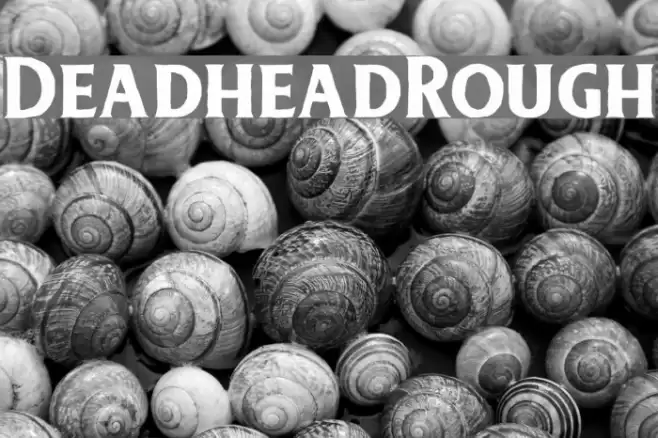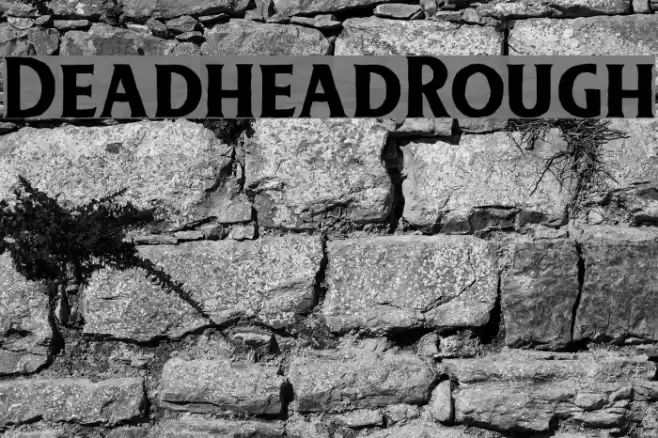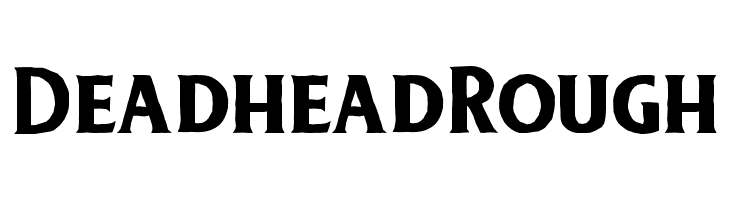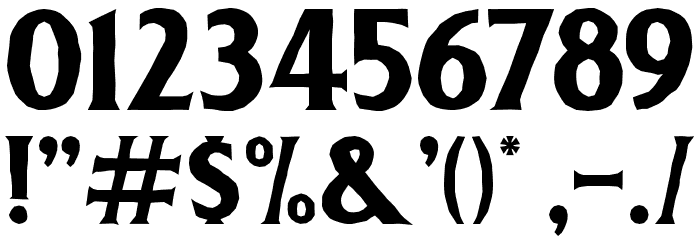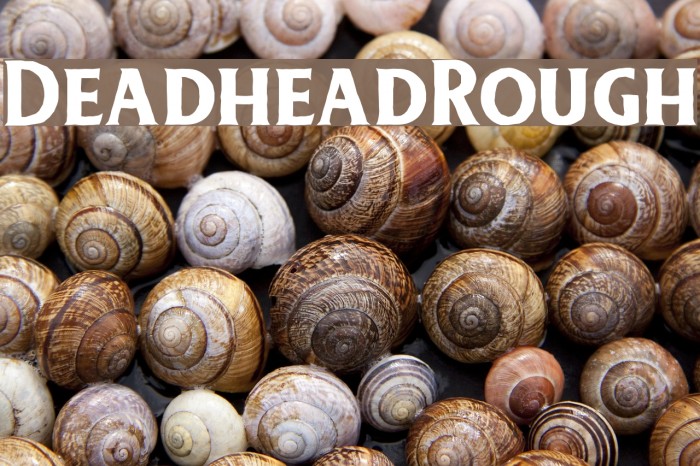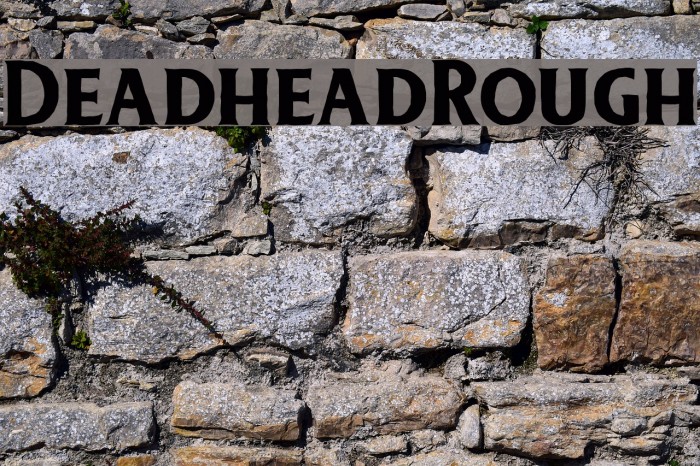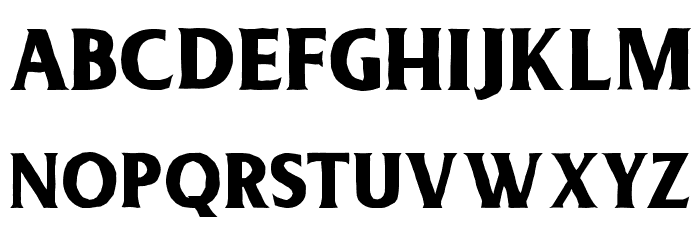
DeadheadRough Font
DeadheadRough Description
This font exudes a rugged and bold aesthetic, characterized by its rough, hand-drawn appearance. The letters are thick and slightly irregular, giving them a unique, organic feel. The uppercase and lowercase letters maintain a consistent style, with sharp angles and a slightly distressed texture that adds to its vintage charm. The numerals and special characters follow the same design principles, ensuring a cohesive look across all glyphs. This font is perfect for projects that require a touch of edginess and personality, making it ideal for creative and artistic endeavors.
A rugged, hand-drawn font with a bold, vintage aesthetic from Distorted Eroded fonts.
- Proposed Projects: Ideal for posters, album covers, branding, and any project needing a bold, artistic touch.
- Overall Style: Vintage